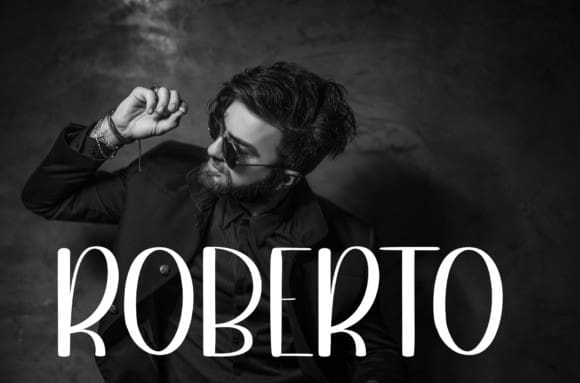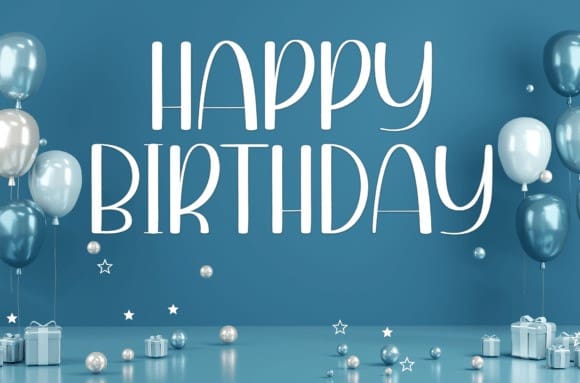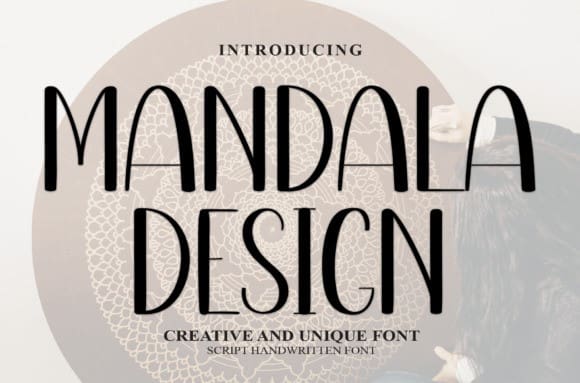
Mandala Design Font
Mandala Design Font is a sweet and friendly handwritten font. Cute and creative, this font is ideal for writing wedding invitations, cards, or any other design that might need a fun touch!